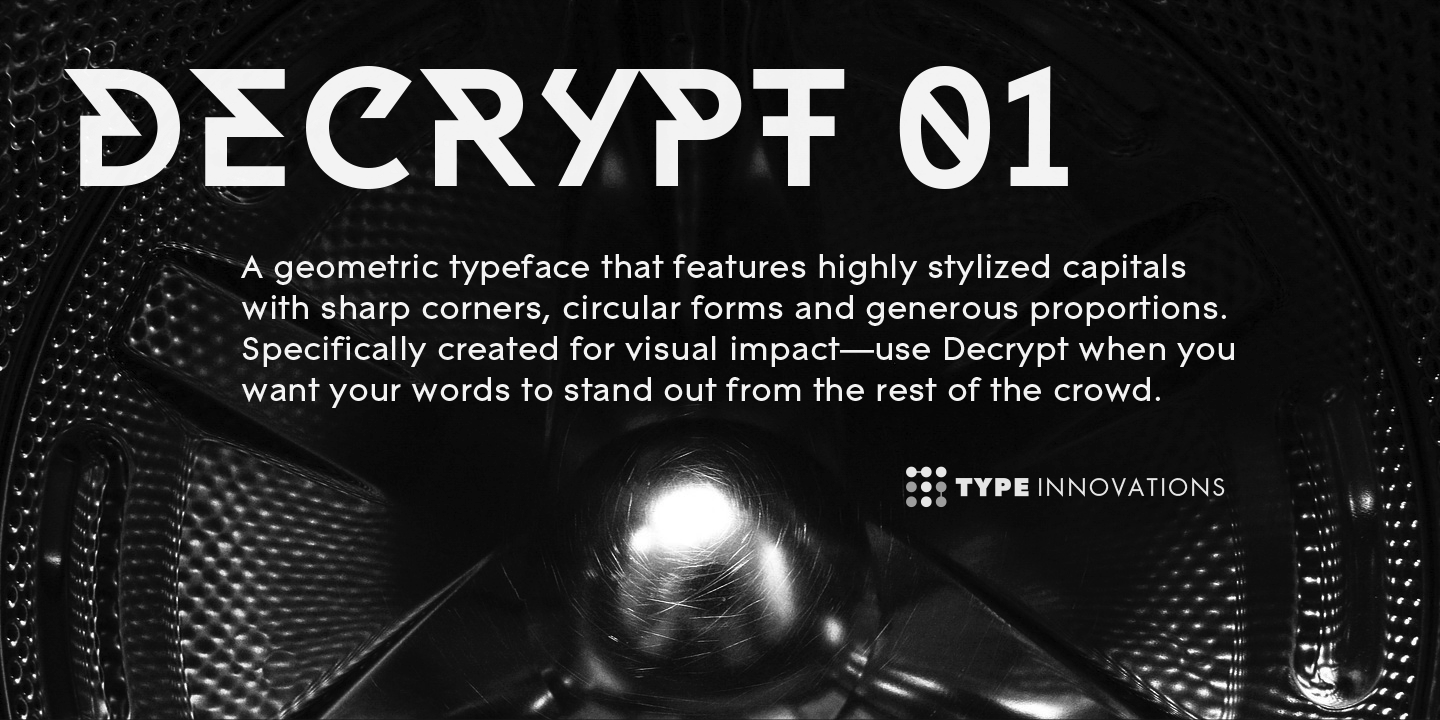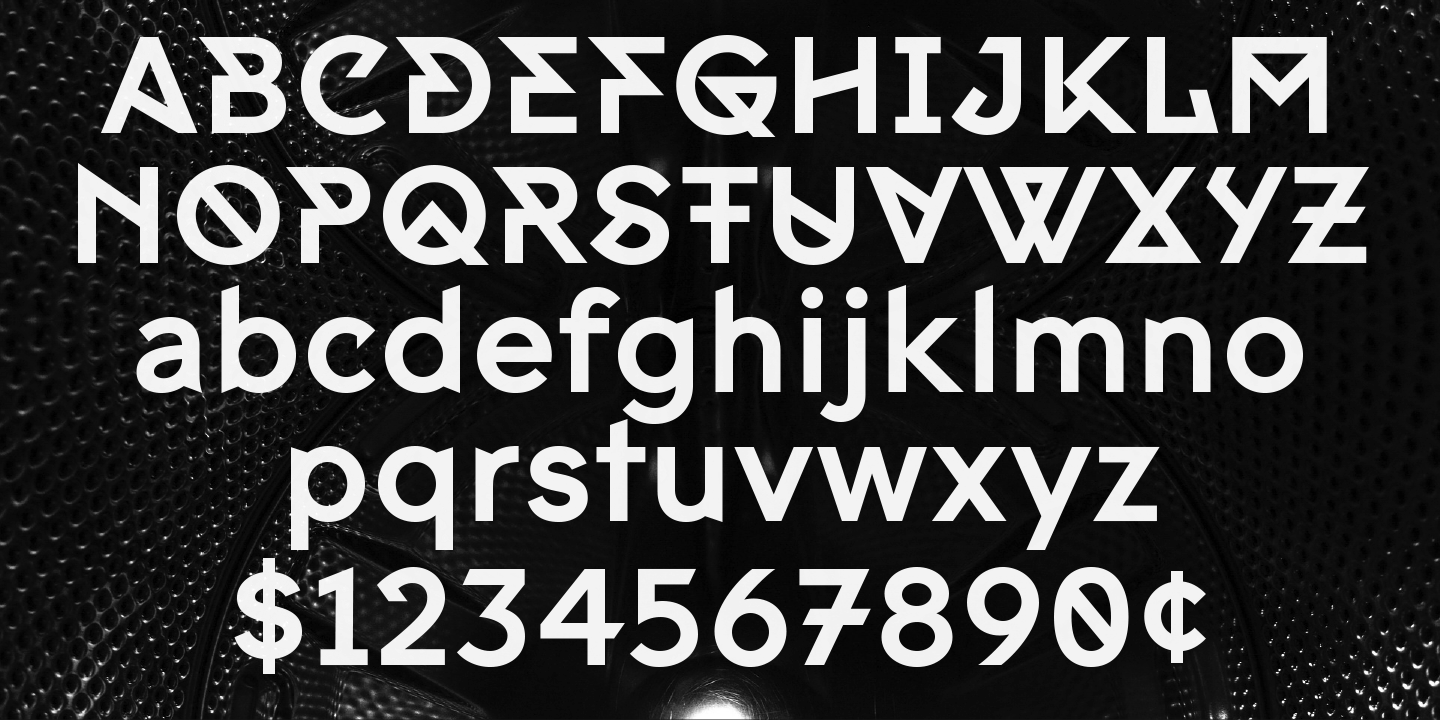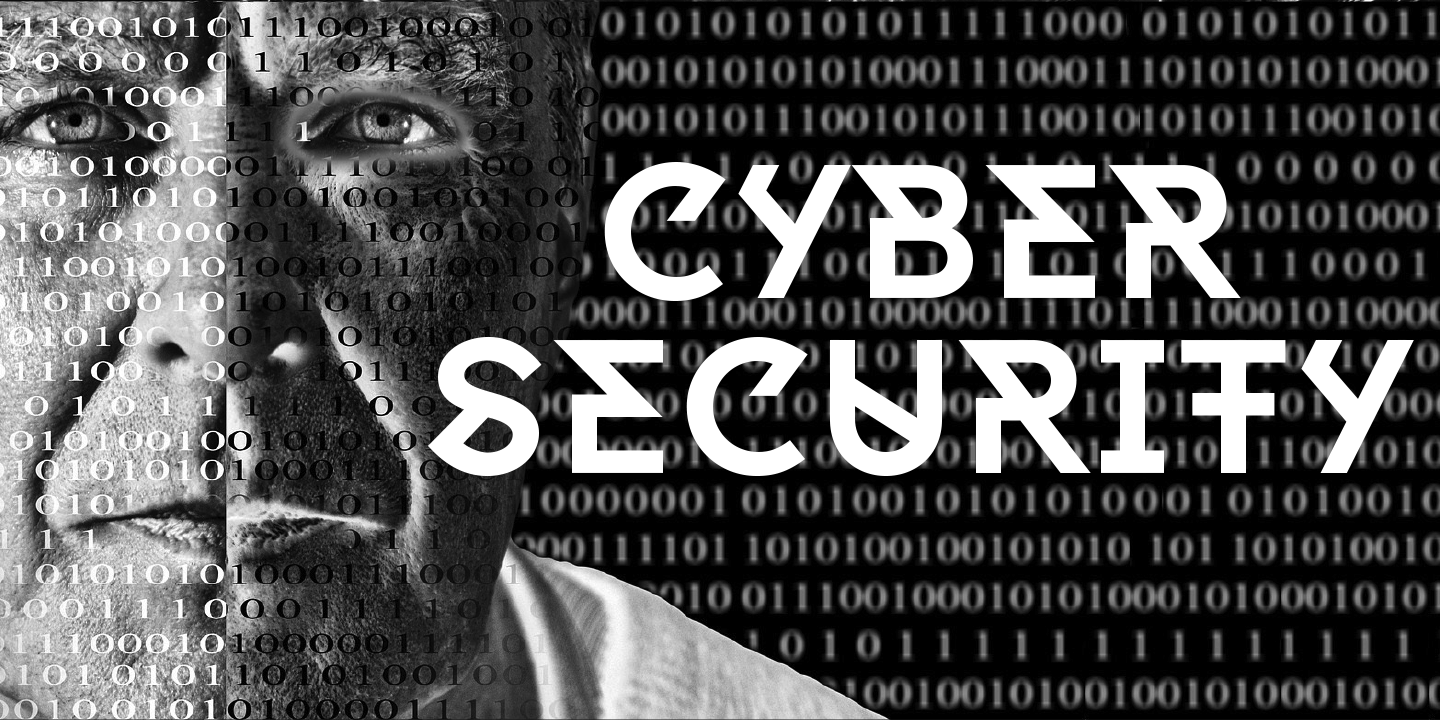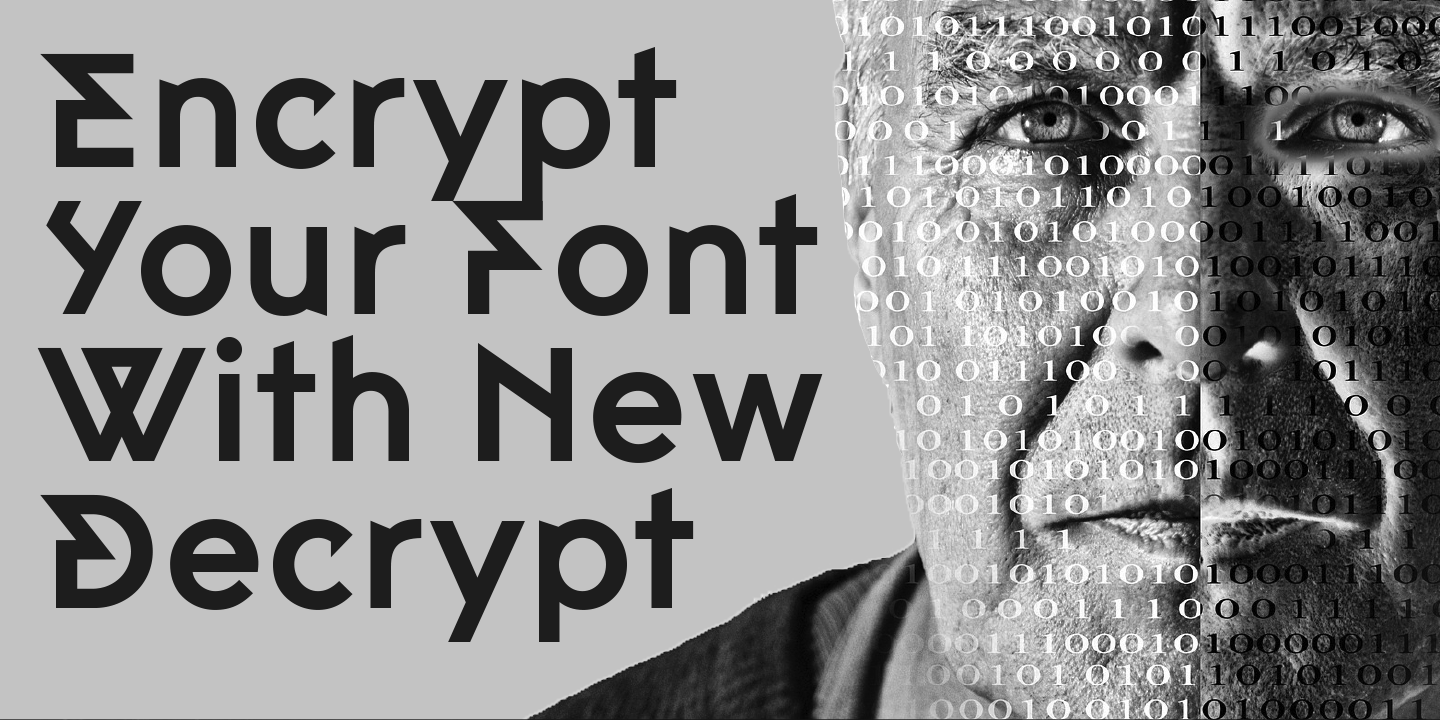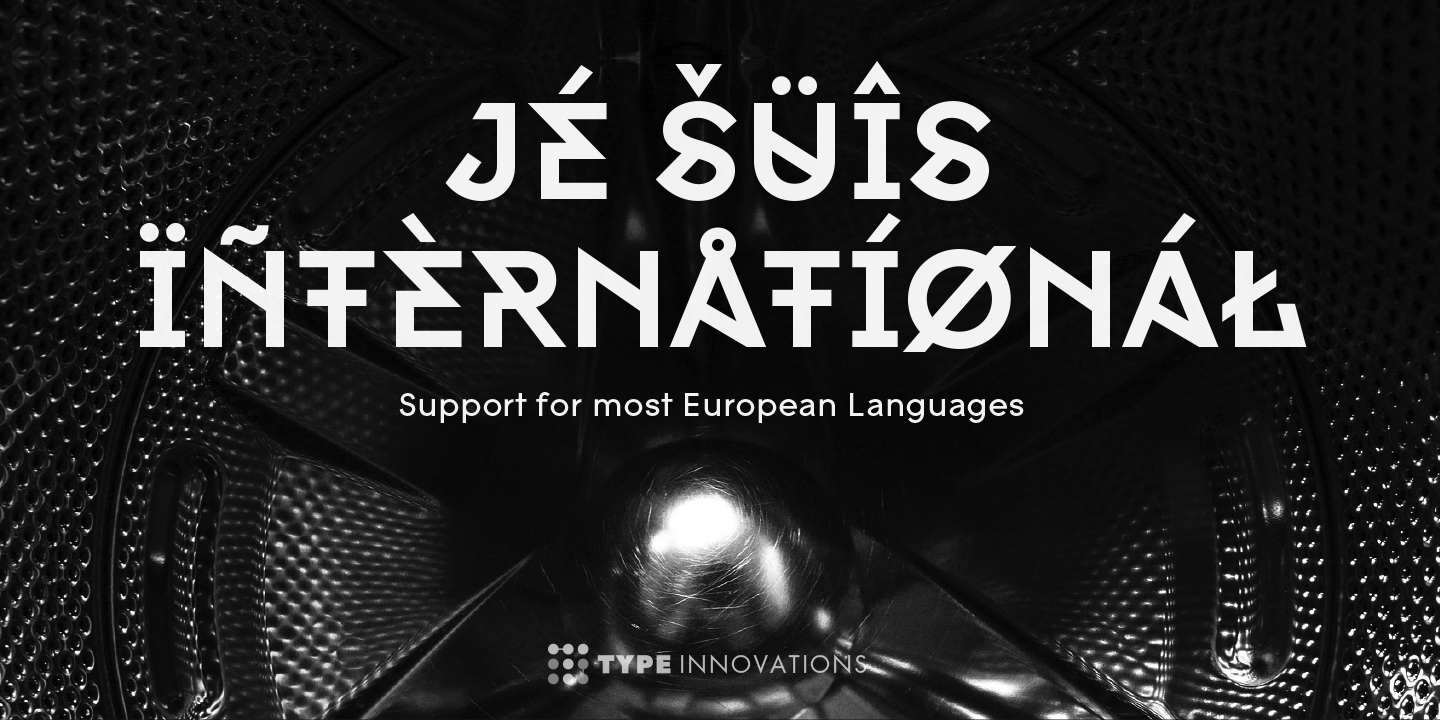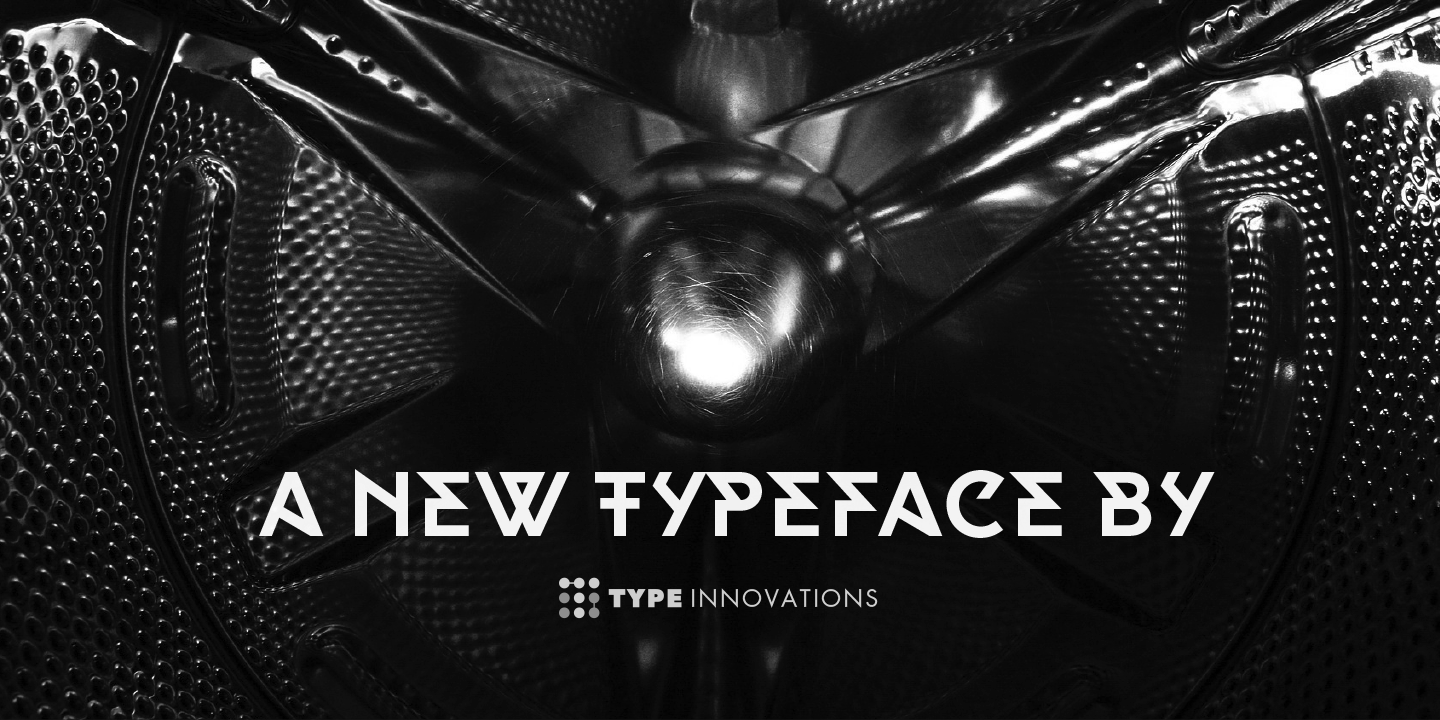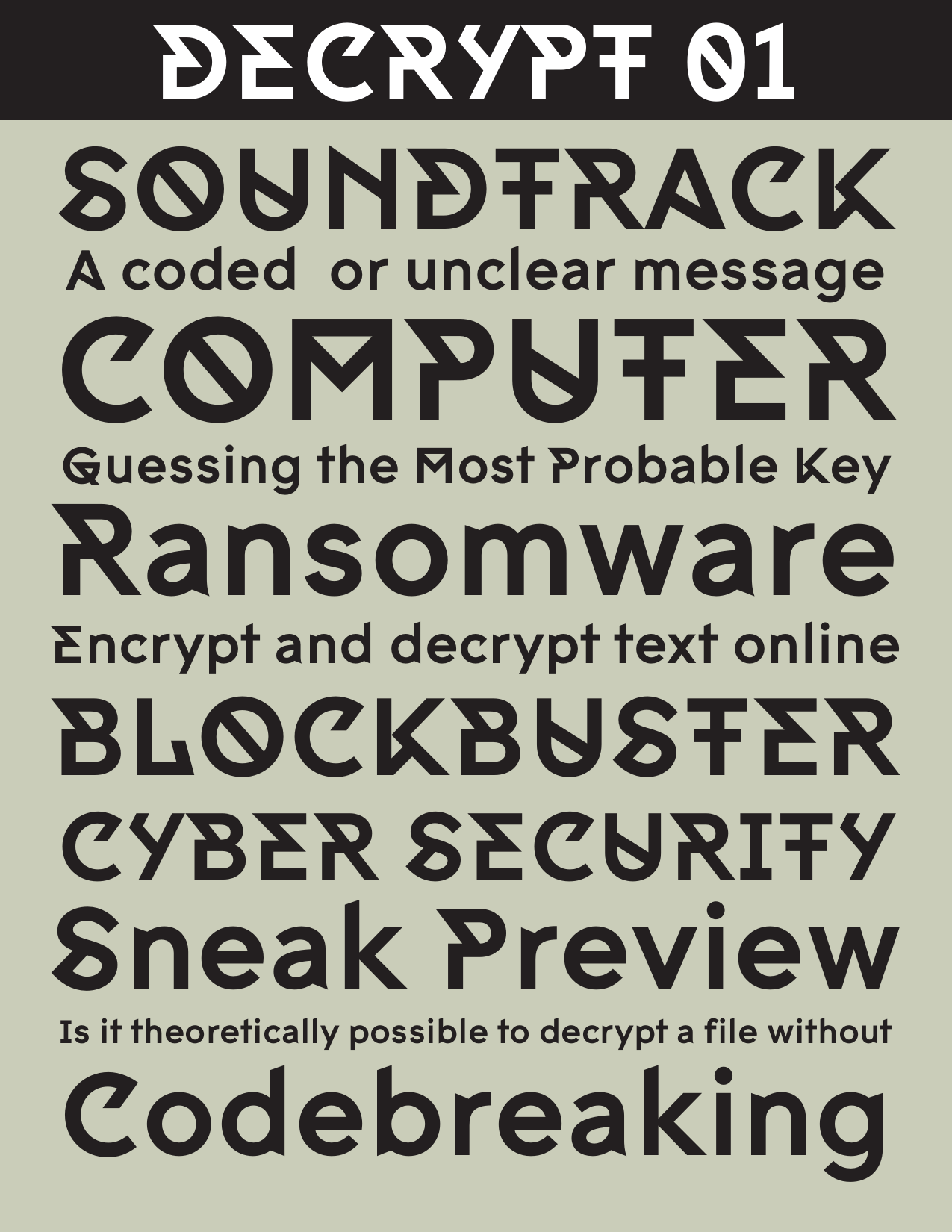
Decrypt 01
Say hello to Decrypt 01—a geometric typeface that features highly stylized capitals with sharp corners, circular forms and generous proportions. Specifically created for visual impact—use Decrypt when you want your words to stand out from the rest of the crowd. The concept is modern, futuristic and non-traditional. Perfect for display text, logos and headings.
The development of Decrypt started in 1997, inspired by Alex Kaczun’s best selling grotesque font family called Contax Pro. Decrypt is specifically introduced here as a bold weight, but Alex plans to expand the design to include many weights, styles and alternative design treatments. Stay tuned!